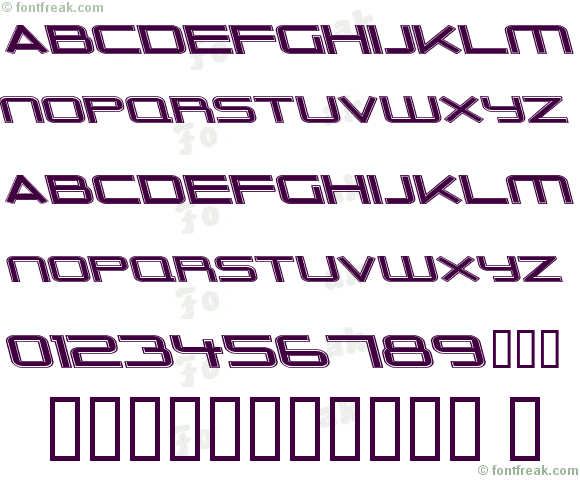
About Outer limits
Outer Limits by Shyfonts Type Foundry is a striking display font that captures attention with its solid, extended letterforms and distinctive italic style. Created in 1999 by the talented designer Shywedge, this freeware font is characterized by its bold stroke weight and minimal contrast, making it both legible and visually impactful. The spacing of the letters is generous, ensuring that words are easily readable, even at larger sizes. The font exudes a modern, dynamic feel, perfect for a variety of design applications.
This versatile typeface shines in several use cases. It’s an excellent choice for movie posters where a bold, eye-catching title is essential. Outer Limits can also elevate restaurant menus, giving them a contemporary flair that captures the essence of modern dining experiences. Additionally, its unique character makes it ideal for branding small businesses looking to establish a strong visual identity. Graphic designers will find it particularly useful for creating promotional materials, ensuring their projects stand out in a crowded marketplace. Content creators can also leverage this font in digital graphics and social media posts, drawing in their audience with its unique appeal.
Targeting graphic designers, small business owners, and content creators alike, Outer Limits provides a creative yet professional touch to any project. Its distinctive style allows it to stand out while remaining versatile enough to suit various design needs. As a freeware font, it is accessible to anyone looking to enhance their designs without financial constraints. The Outer Limits font free download offers an opportunity to incorporate a unique and stylish typeface into your work, ensuring your designs leave a lasting impression. Embrace the boldness and modernity of Outer Limits, and let your creativity take flight.